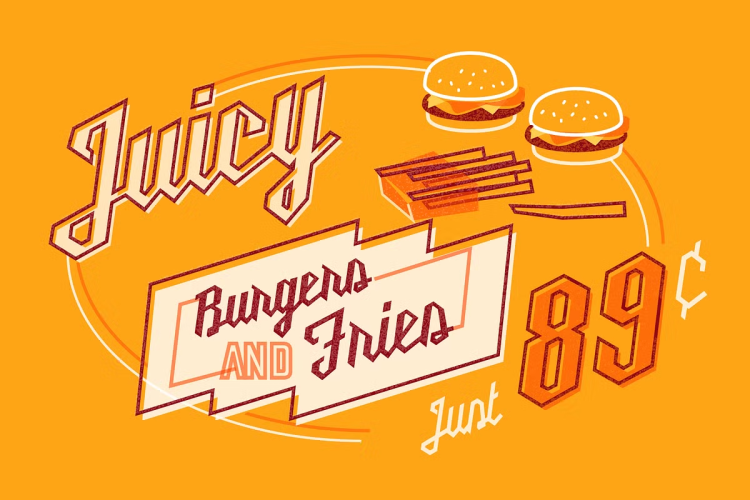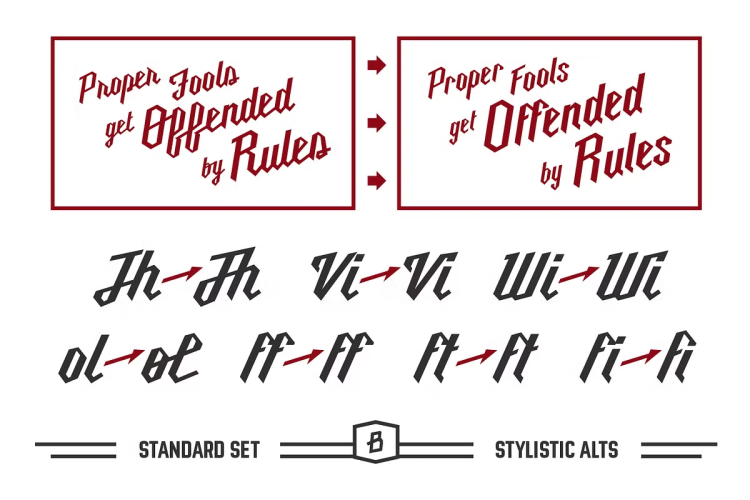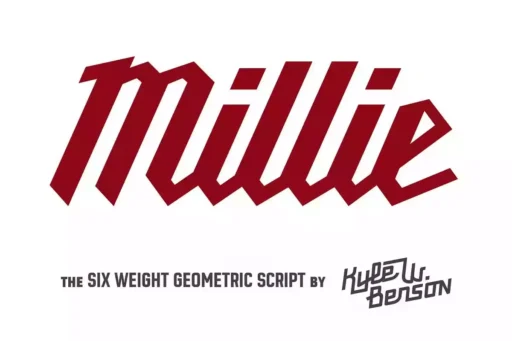
Millie Font
Millie is a geometric script font with a split personality and a rather bold and edgy look to it. In the day-time, she looks like an industrial lettering that portrays s…
Millie is a geometric script font with a split personality and a rather bold and edgy look to it. In the day-time, she looks like an industrial lettering that portrays strength and accuracy. As night falls, she comes alive as the bad-girl friend of gothic fonts and ‘patches’ motorcycles with an attitude that is rough and rebellious.
Drawing its base from the broad nib calligraphy and copying the Milwaukee Tool logo, Millie is at her best in logos and titles. It looks great at a very steep 20 degrees and yet she can look rather good even when she is fully horizontal.
Taking full advantage of the OpenType technology, Millie font comes with an array of options to help in any design. It has many connections and two sets of stylistic alternates, which is suitable for any design project. The first stylistic set is ideal for a disconnected script style that is fashionable to give your design a modern twist. The second set of connections and fluidity contains more details and creates a smooth flow of the script, which is very natural and lively.
To make Millie Round even more friendly and versatile, Millie Round rounds off her sharper corners to make the typeface much friendlier and more versatile. Depending on the type of design you want, be it a rough and tough industrial style or a more welcoming script style, Millie is perfect for the job.
Where Millie Font works best
Millie Font brings a personal, handwritten warmth to invitations, menus and place cards.
Craft brands — coffee, cosmetics, bakery — use scripts like Millie Font for signature-style logos and labels.
Pair Millie Font with a plain sans for quotes, stories and Pinterest pins that feel handmade.
What is Millie Font good for?
Millie Font is a Script And Handwritten typeface tagged Bold, Calligraphy, Geometric, Modern. It works well for headlines, logos, posters, social media graphics and branding projects that need a distinctive script and handwritten look.